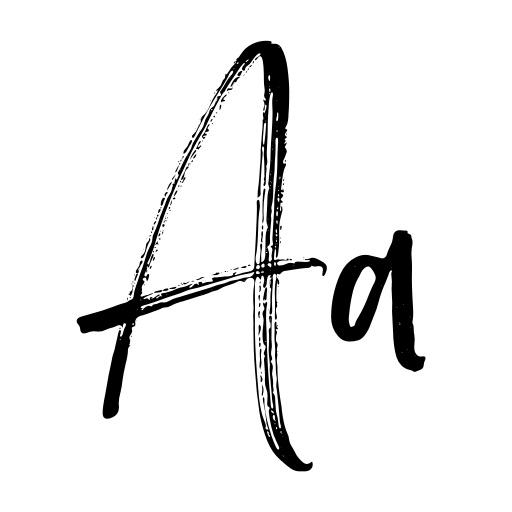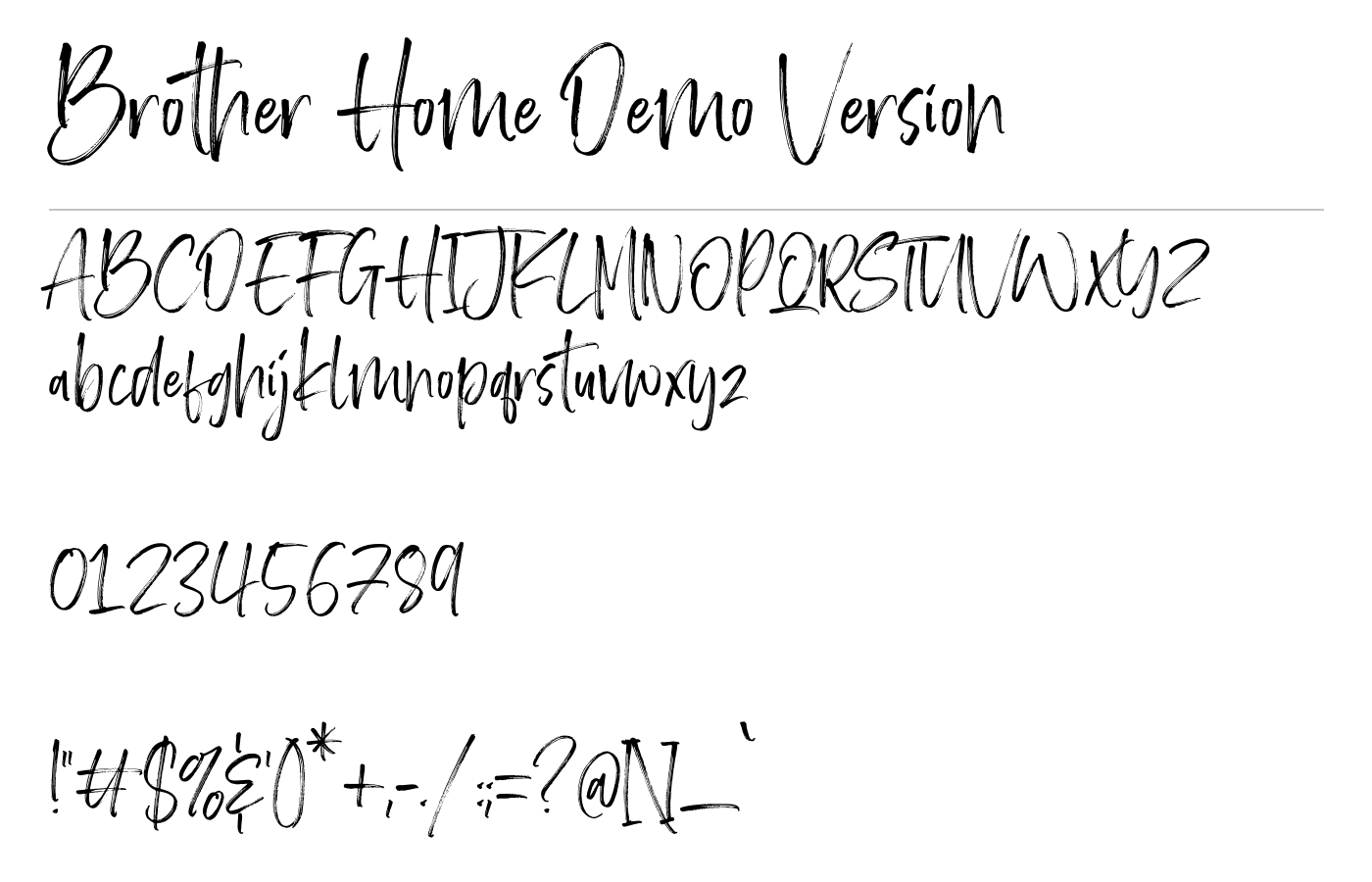
Brother Home Demo Version is a playful, hand-drawn script font that conveys a casual and artistic vibe with its irregular strokes and slightly rough texture. Its tall, narrow letterforms and light weight make it ideal for creative branding, invitations, or social media where a personal, expressive touch is needed. This font works best in headlines or decorative uses, adding a unique, handcrafted feel to designs.
Brother Home Demo Version Font
About Brother Home Demo Version Font
| Font family | Brother Home Demo Version Font |